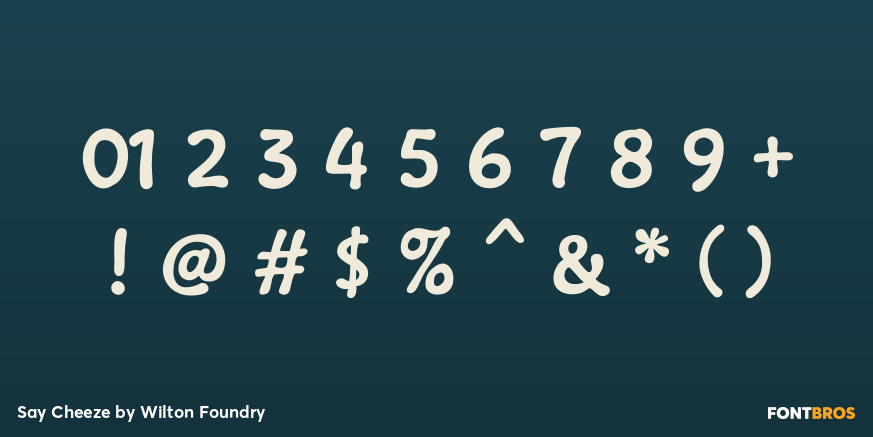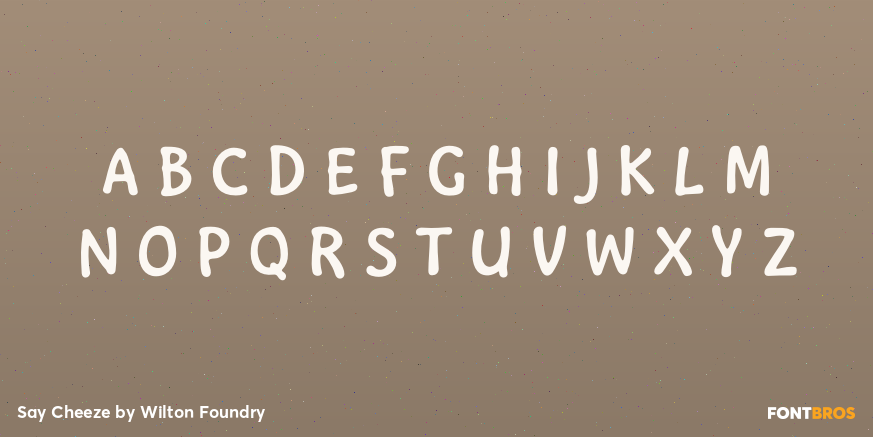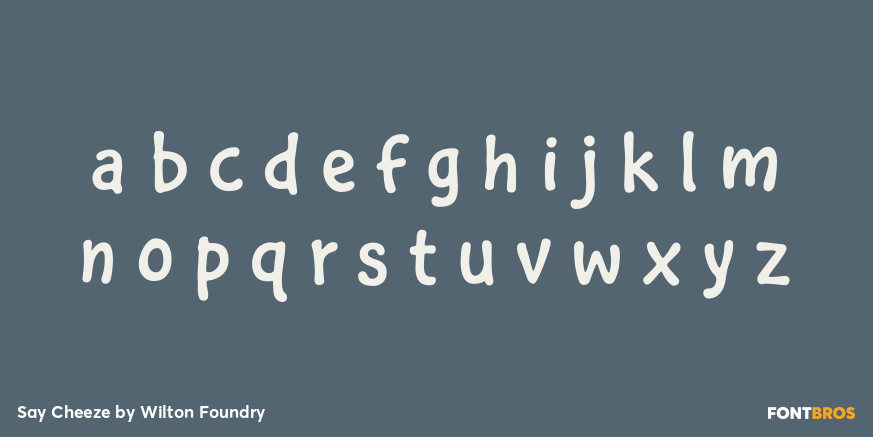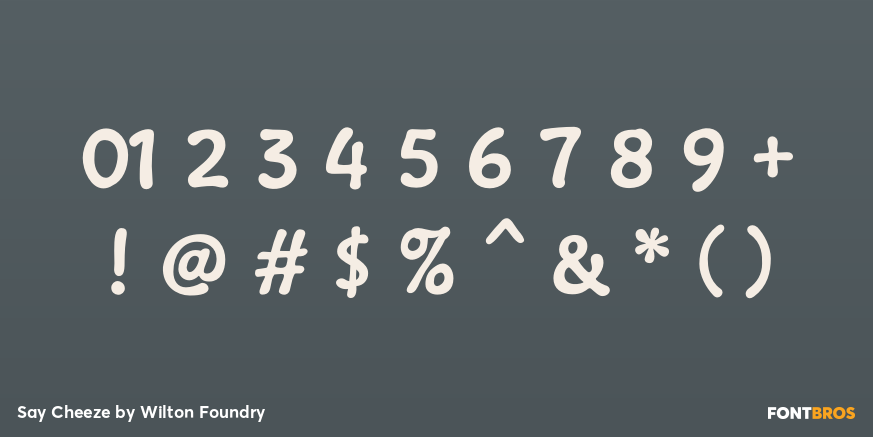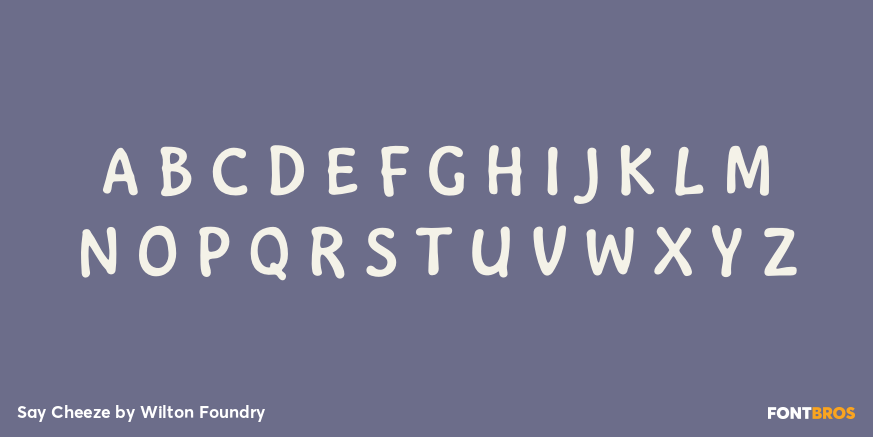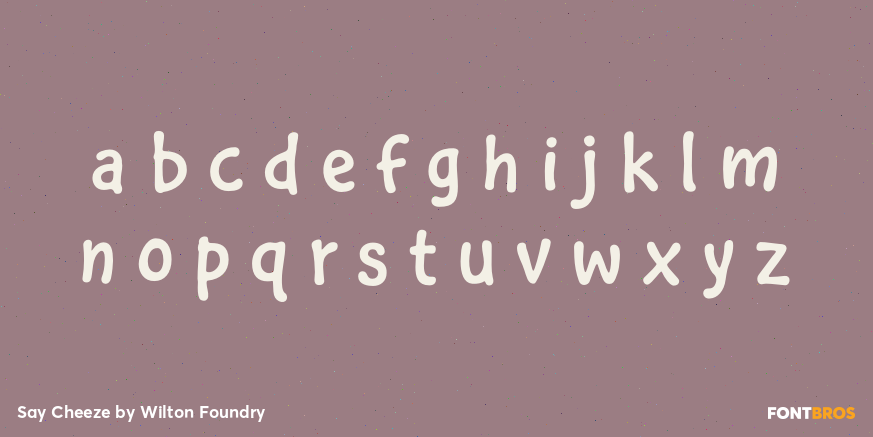
Say Cheeze
Font Family by Wilton Foundry
While the Comic Sans war rages on, we've decided to create an alternative that feels less intrusive and more appropriate to designers that have a need for a comic-like font. SayCheez has many subtle nuances that give it a natural but not overbearing character. Off x-height vowels dominate with many subtly tilted characters for a carefully balanced effect. Because we all need a little more fun and humor in the tough times, we are giving you a regular as well as a light version for the normal price. Smile and enjoy SayCheez!